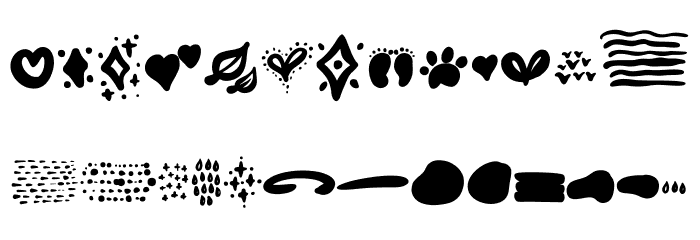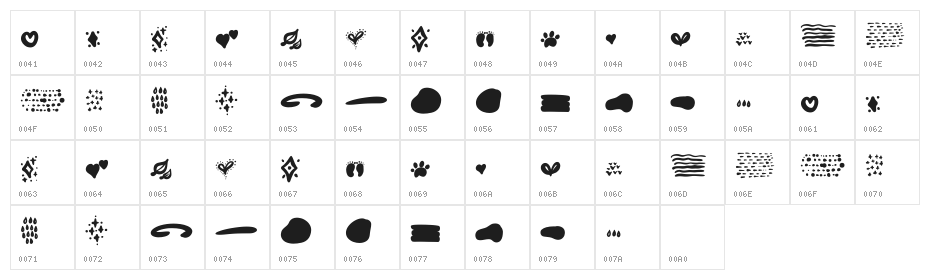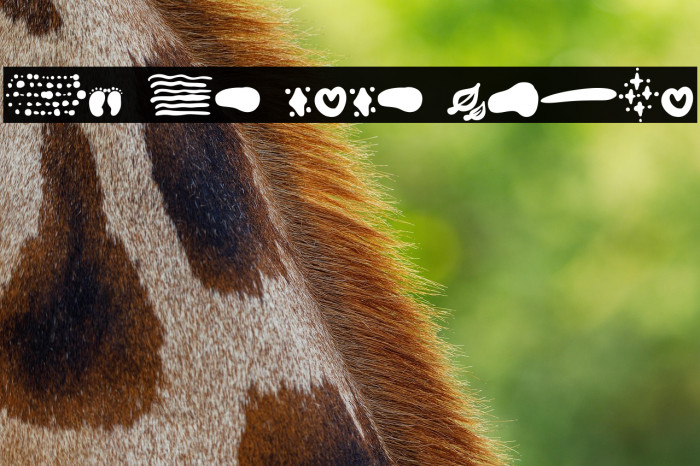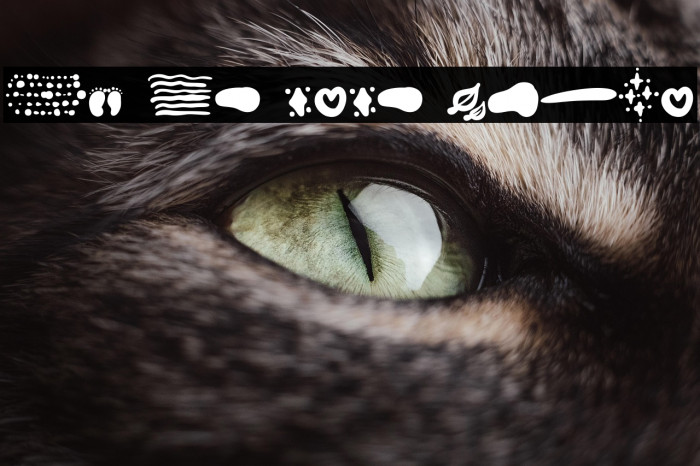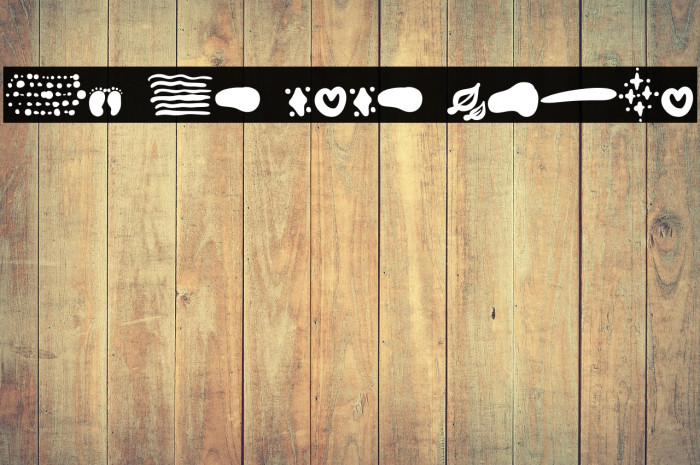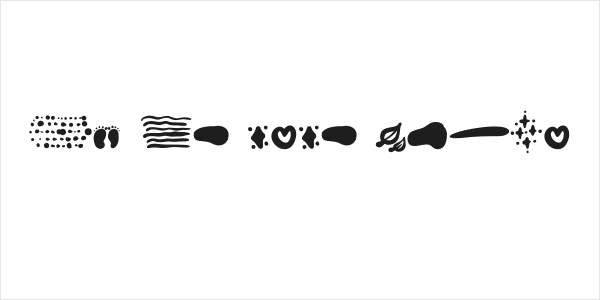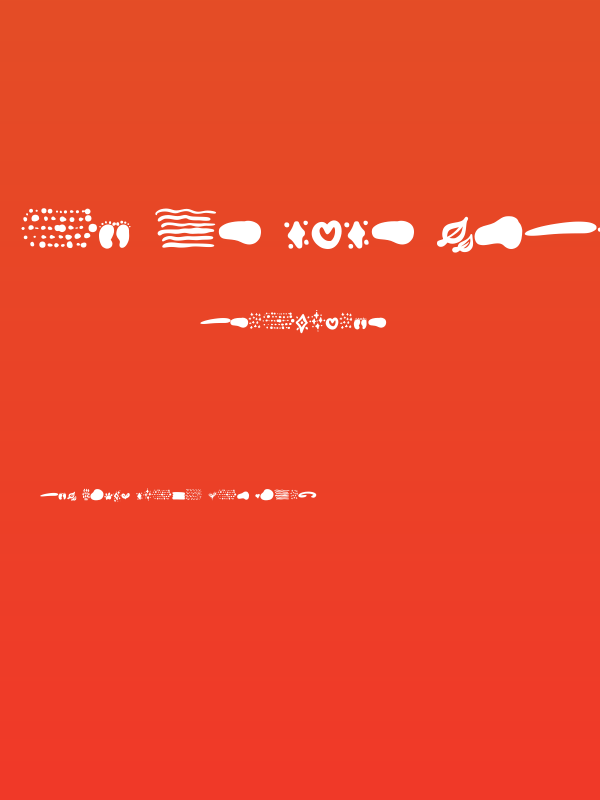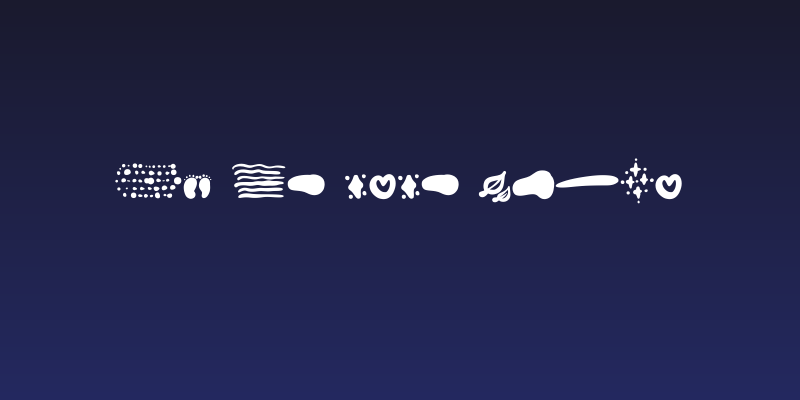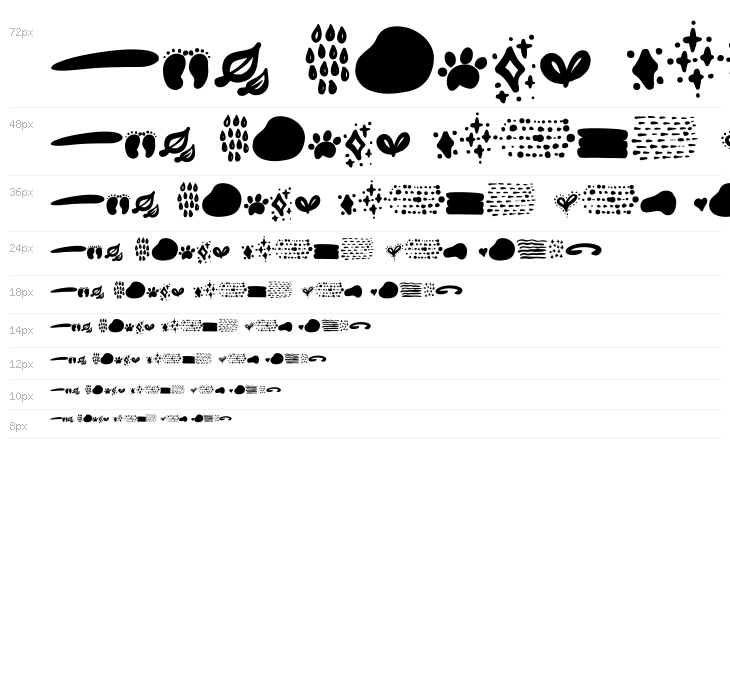
Oh My Baby Extra Font
Oh My Baby Extra Description
| Overall Style | Playful, Whimsical, Decorative |
| Use Case | Decorative elements, Borders, Icons, Themed graphics |
| Proposed Projects | Baby shower invitations, children's party decor, scrapbooking, greeting cards, playful branding, decorative borders. |